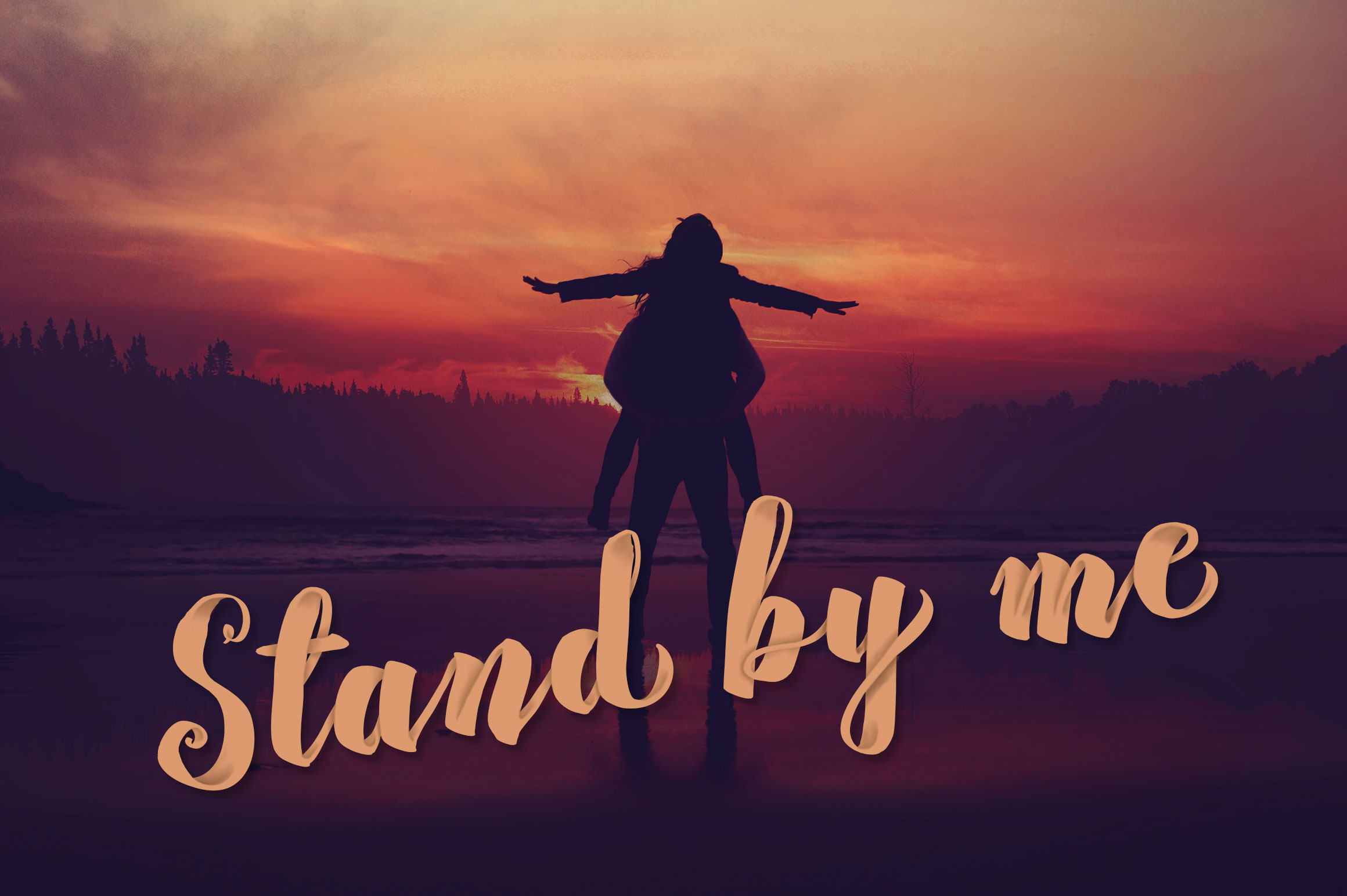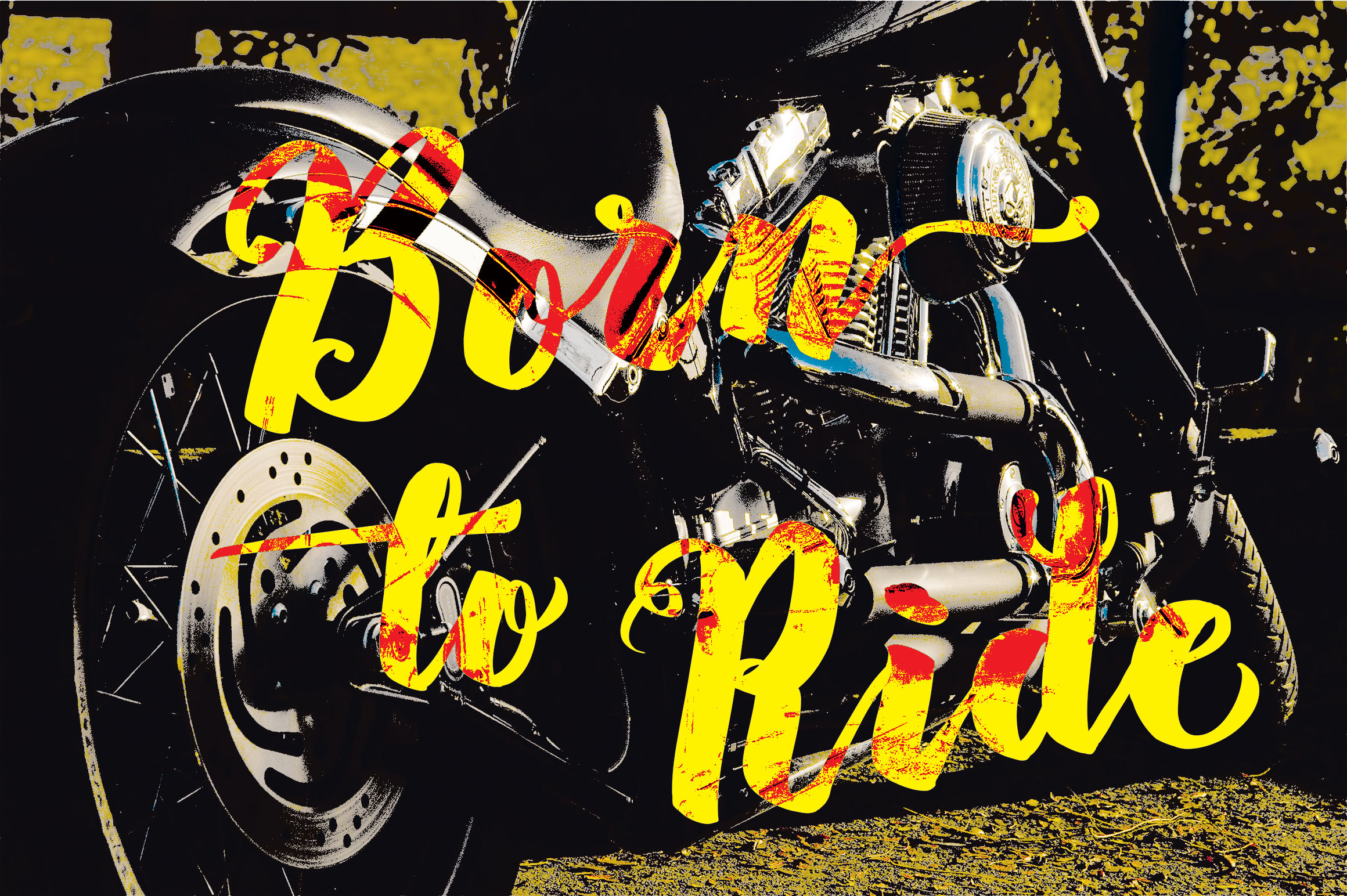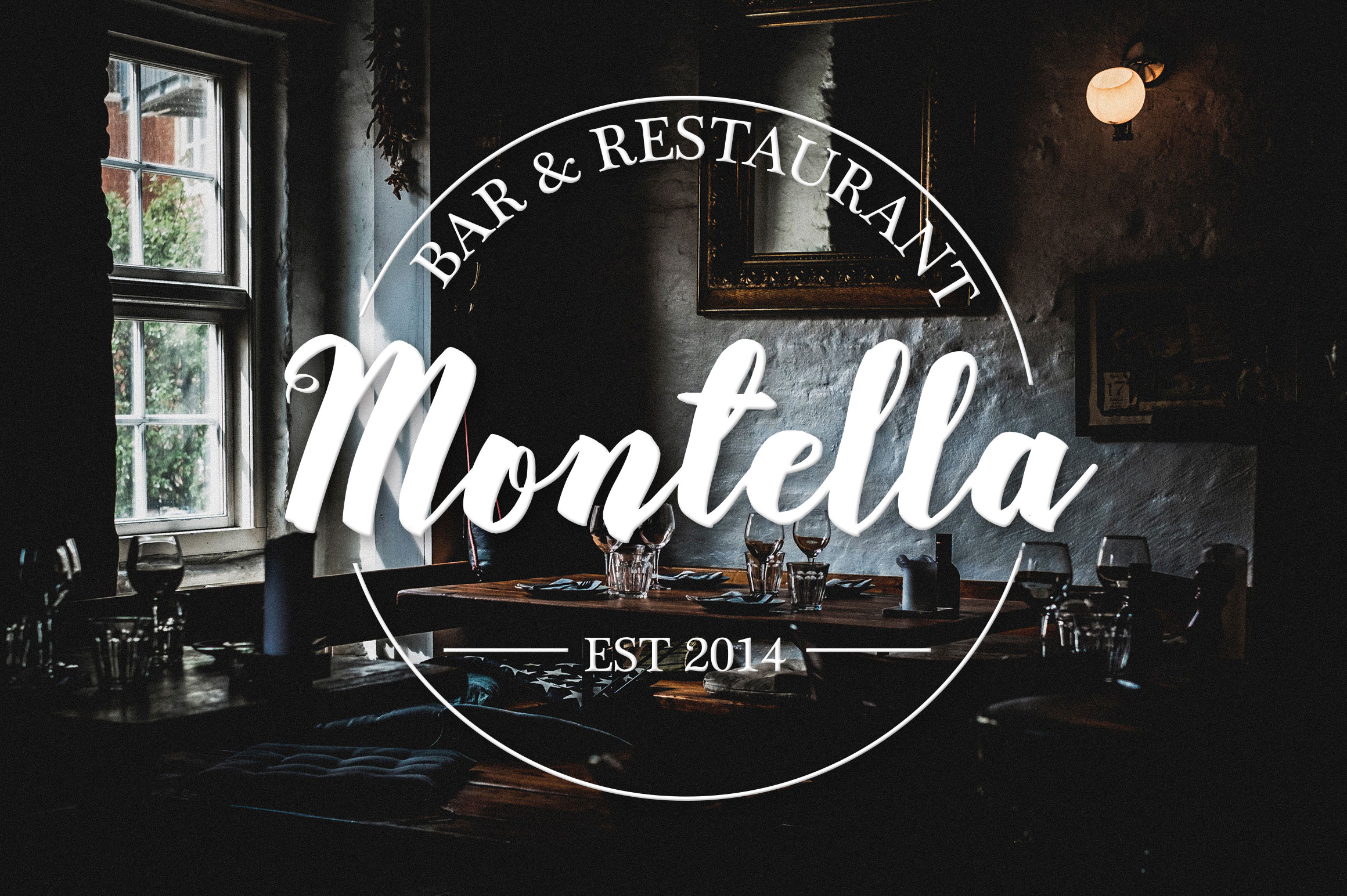
Introduction to Rasterize Font
Rasterize Script Bold is a brand new brush script created by Darwinoo.
The script is drawn with a technique called β€˜speed motion’, which gives the text a unique shape It features 400 unique glyphs with 105 alternate characters.
Key Features of Rasterize Font